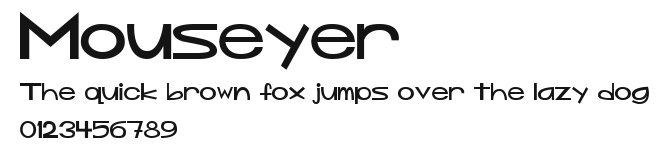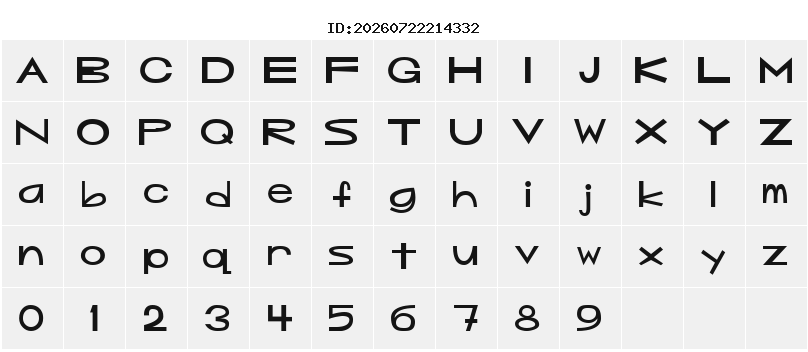
• Font Name: Mouseyer
• Full Font Name: Mouseyer
About Mouseyer.ttf
Mouseyer.ttf is a modern, elegant sans-serif font designed for ultimate readability and visual harmony. Perfect for branding, headlines, web design, and print materials.